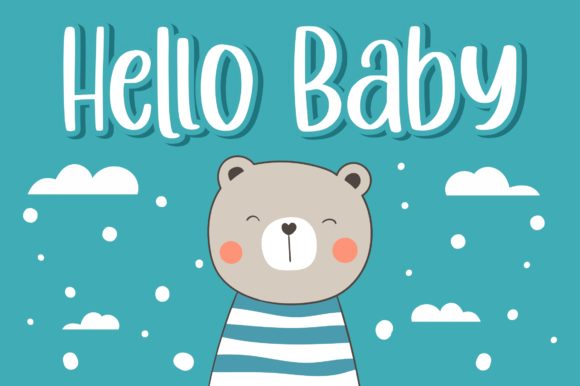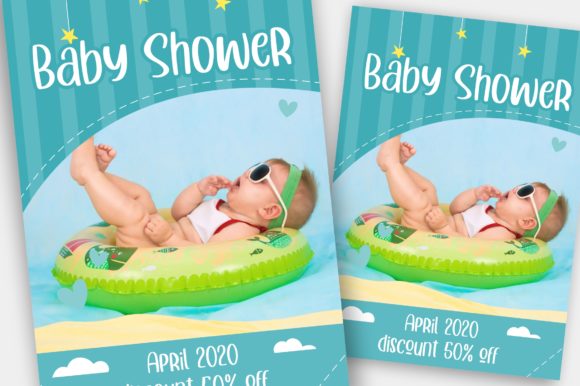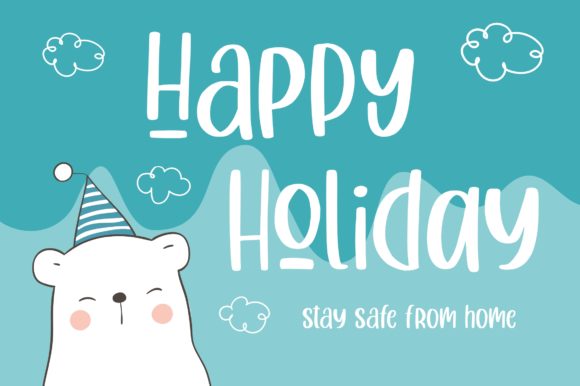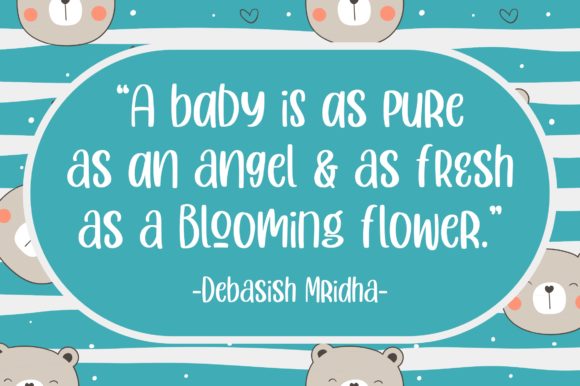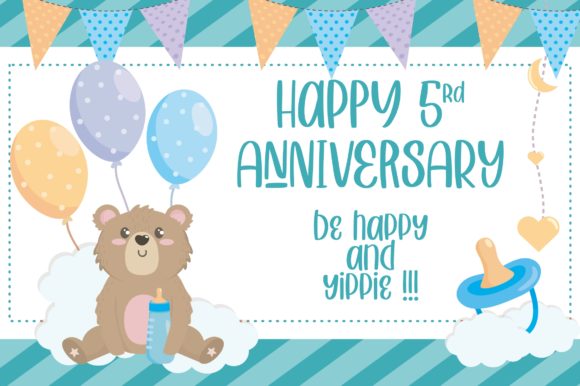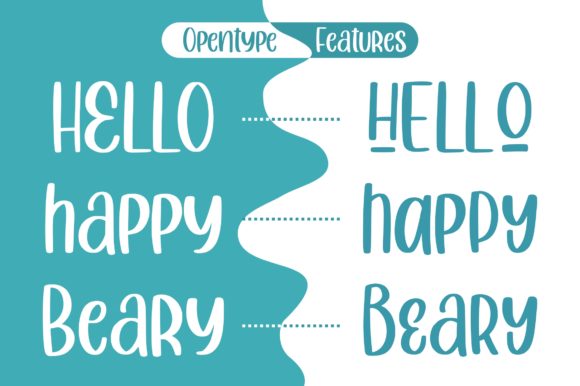
Cuttie Beary Font: The Perfect Addition to Your Design Arsenal
Are you tired of using the same old fonts for your DIY projects? Do you want to add a touch of whimsy and fun to your designs? Look no further than the Cuttie Beary font! This gorgeous and unique display font is perfect for all your fun designs, and we’re excited to dive into its features and benefits.
What is Cuttie Beary Font?
Cuttie Beary is a display font that is sure to make your designs stand out. Its playful and charming style is perfect for a variety of projects, from party invitations and craft tutorials to social media graphics and blog posts. The font’s unique and eye-catching design makes it an excellent choice for designers and crafters looking to add some personality to their work.
Key Features of Cuttie Beary Font
- Unique and Playful Design: Cuttie Beary’s design is unlike any other font out there. Its playful and charming style is sure to capture the attention of your audience and add a touch of fun to your designs.
- High-Quality and Versatile: This font is perfect for a wide range of projects, from digital designs to print materials. Its high-quality design ensures that it will look great in any context.
- Easily Customizable: Cuttie Beary font is easy to customize, making it simple to adapt to your design needs. You can adjust the font size, color, and style to fit your project’s requirements.
- Perfect for DIY Projects: Whether you’re working on a craft tutorial, party invitation, or social media graphic, Cuttie Beary font is the perfect choice. Its playful design is sure to bring your DIY project to life!
Benefits of Using Cuttie Beary Font
So, why should you choose Cuttie Beary font for your designs? Here are just a few benefits of using this amazing font:
- Adds a Touch of Whimsy: Cuttie Beary font adds a touch of whimsy and fun to your designs, making them more engaging and attention-grabbing.
- Stand Out from the Crowd: With Cuttie Beary font, you can create designs that stand out from the crowd. Its unique design ensures that your work will be noticed.
- Perfect for Branding and Marketing: If you’re looking to create a brand or promote a product, Cuttie Beary font is an excellent choice. Its playful design can help you connect with your target audience and create a memorable brand identity.
How to Use Cuttie Beary Font
Using Cuttie Beary font is easy! Here are a few tips to get you started:
- Pair it with Other Fonts: Cuttie Beary font pairs well with other fonts, so feel free to experiment with different combinations to create a unique look.
- Use it for Headings and Titles: Cuttie Beary font is perfect for headings and titles, where its playful design can really shine.
- Experiment with Colors and Textures: Don’t be afraid to experiment with different colors and textures to add depth and interest to your designs.
In conclusion, Cuttie Beary font is the perfect addition to your design arsenal. Its unique and playful design makes it an excellent choice for designers and crafters looking to add some personality to their work. With its high-quality design, versatility, and ease of use, Cuttie Beary font is sure to bring any DIY project to life! So why wait? Download Cuttie Beary font today and start creating fun and engaging designs that will capture the attention of your audience.